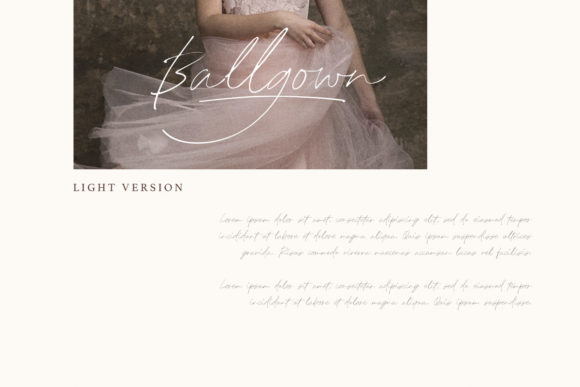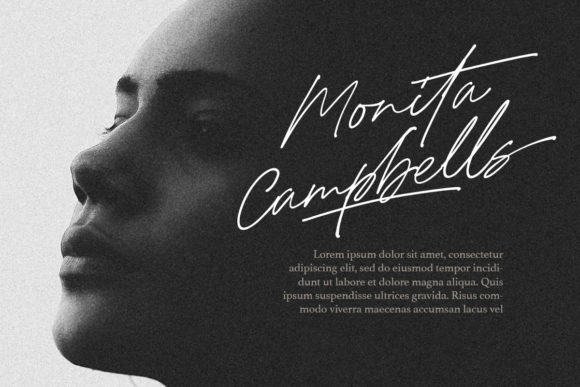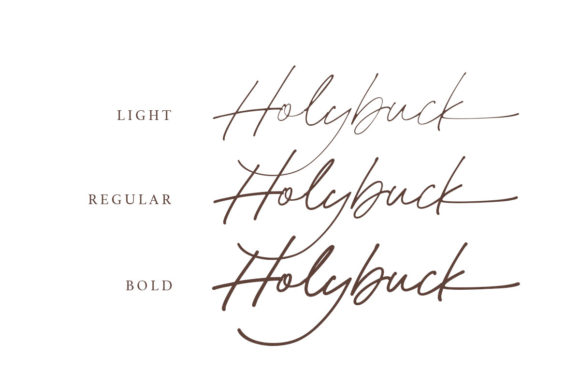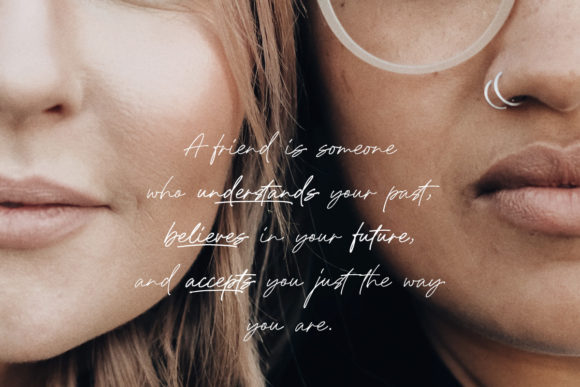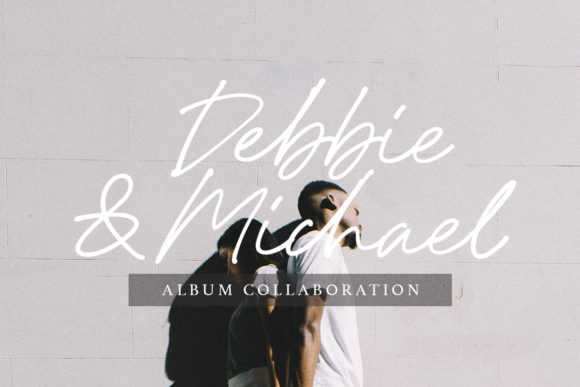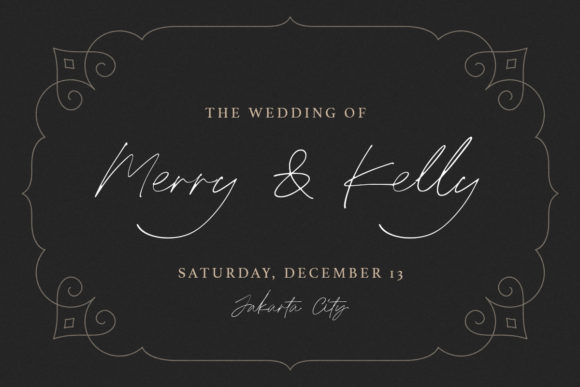
Introduction to Holybuck Font
As a designer, there’s nothing quite like the thrill of bringing a creative project to life. You’re brainstorming ideas, sketching out concepts, and finally, you land on the perfect font to tie everything together. For many of us, that font is Holybuck Font – a stunning script font that exudes elegance and sophistication.
With its modern look and feel, Holybuck Font is the perfect addition to any design project, from logos and branding to invitations and social media posts. And the best part? It’s PUA encoded, making it easy to access all of the glyphs and swashes you need to take your designs to the next level. Whether you’re working on a high-end campaign or a personal project, Holybuck Font is a valuable resource that’s sure to elevate your work.
Key Features of Holybuck Font
- High-quality font designed for creative projects, ideal for use as a design resource.
- Comes with transparent background, making it perfect for use on various backgrounds and designs.
- Unique characteristics include a modern, elegant design and a wide range of typographic styles.
- Perfect for use in digital and print projects, including logos, branding materials, and marketing materials.
Honest Review: Holybuck Font
I recently stumbled upon the Holybuck Font, a high-quality design resource that caught my attention. The first thing I noticed was the clear and transparent background, which makes it perfect for a creative project that requires a clean and minimalist look.
Here are some things that work well: ✨ The font is highly customizable and comes with a wide range of styles, making it easy to experiment with different designs. ✨ The free download option is a huge plus, making it accessible to designers of all levels. ✨ The font is also highly versatile and can be used for various purposes, from logos to web design.
However, I did notice a few limitations: ⚠️ The font may not be suitable for small text sizes, as it can become pixelated. ⚠️ The number of font styles is limited, which may not be ideal for designers who want more options.
Overall, I’m impressed with the Holybuck Font and would recommend it to designers looking for a high-quality, free design resource. It’s a great addition to any design toolkit and can help take your creative projects to the next level.
- Clear and transparent background
- Customizable and versatile
Tips for Getting the Most Out of Holybuck Font
For optimal results, use the Holybuck Font with a transparent background to give your designs a clean and minimalist look. Experiment with different font sizes and styles to create a visually appealing effect.
Common Use Cases for Holybuck Font
The Holybuck Font is ideal for creating graphics, logos, and typography for various creative projects, such as social media graphics, blog posts, or presentations. Its high-quality design makes it a popular design resource among designers and non-designers alike.
Q: Does the Holybuck Font have a transparent background?
Yes, the Holybuck Font has a transparent background, making it perfect for design projects that require a clean and minimalist look. The transparent background also allows you to easily combine the font with other design elements, such as images or graphics.